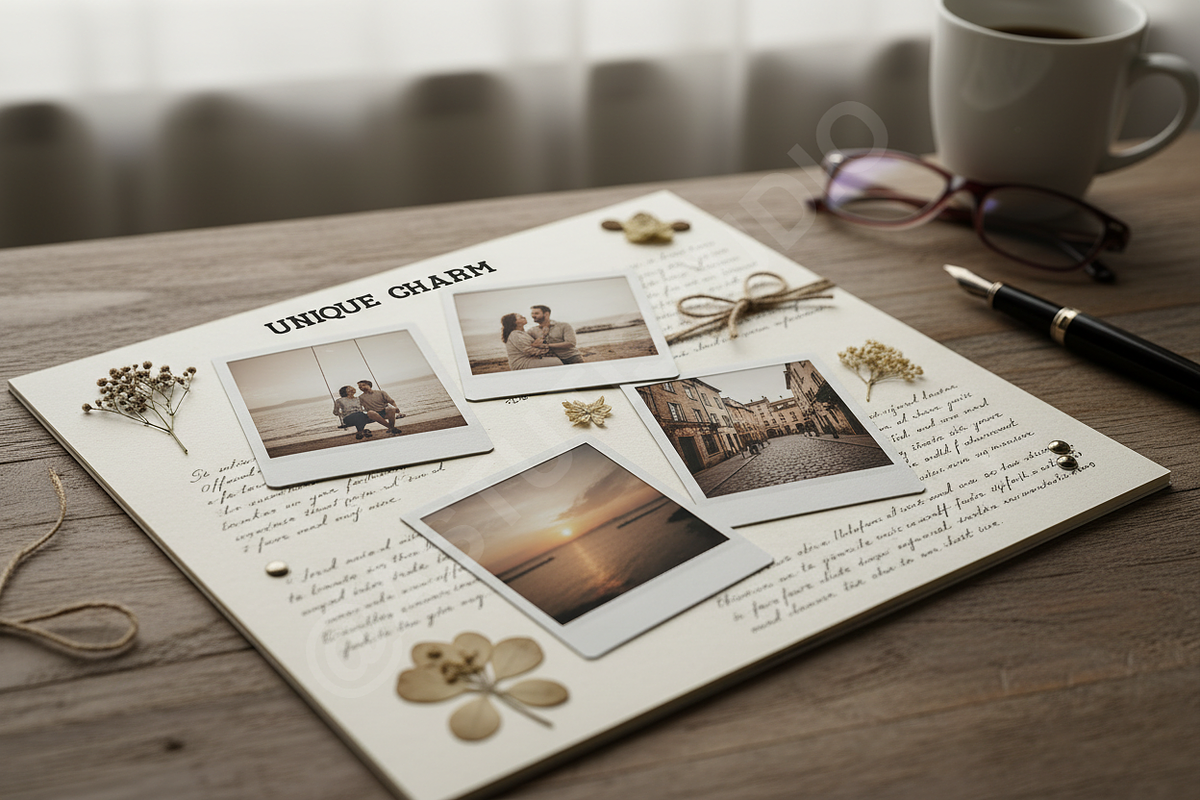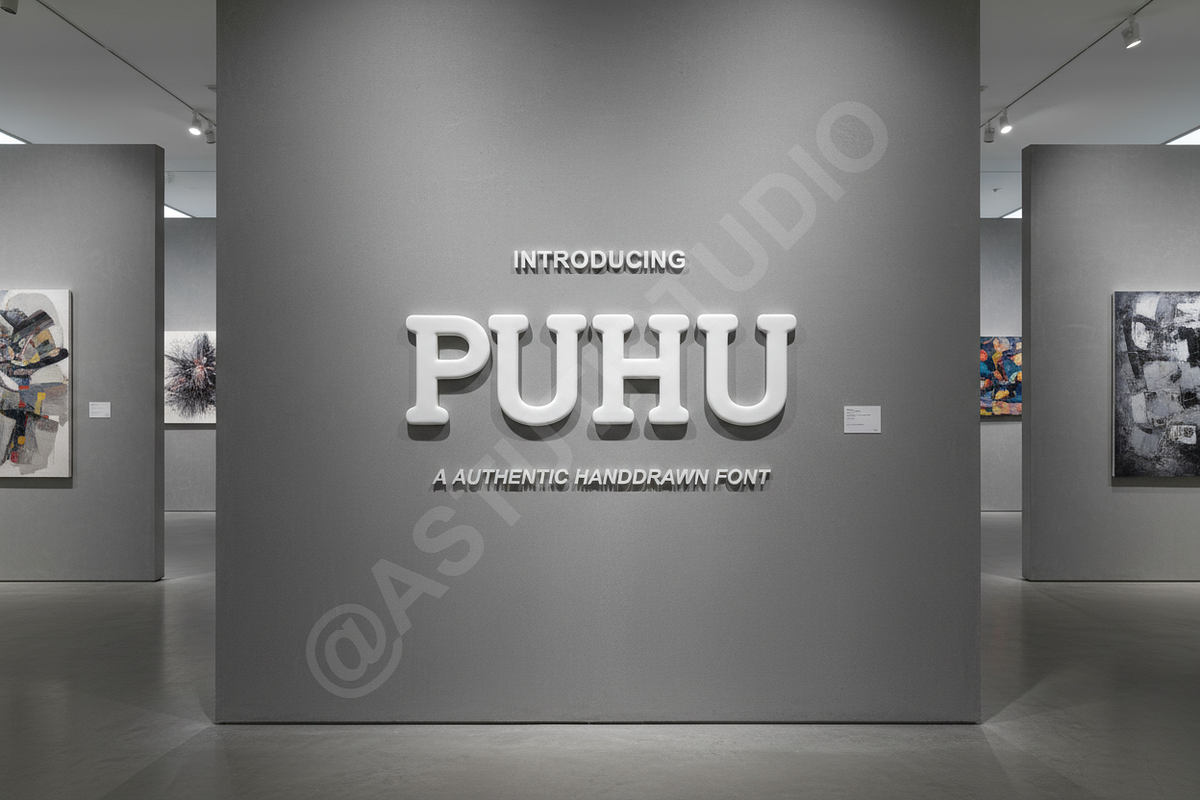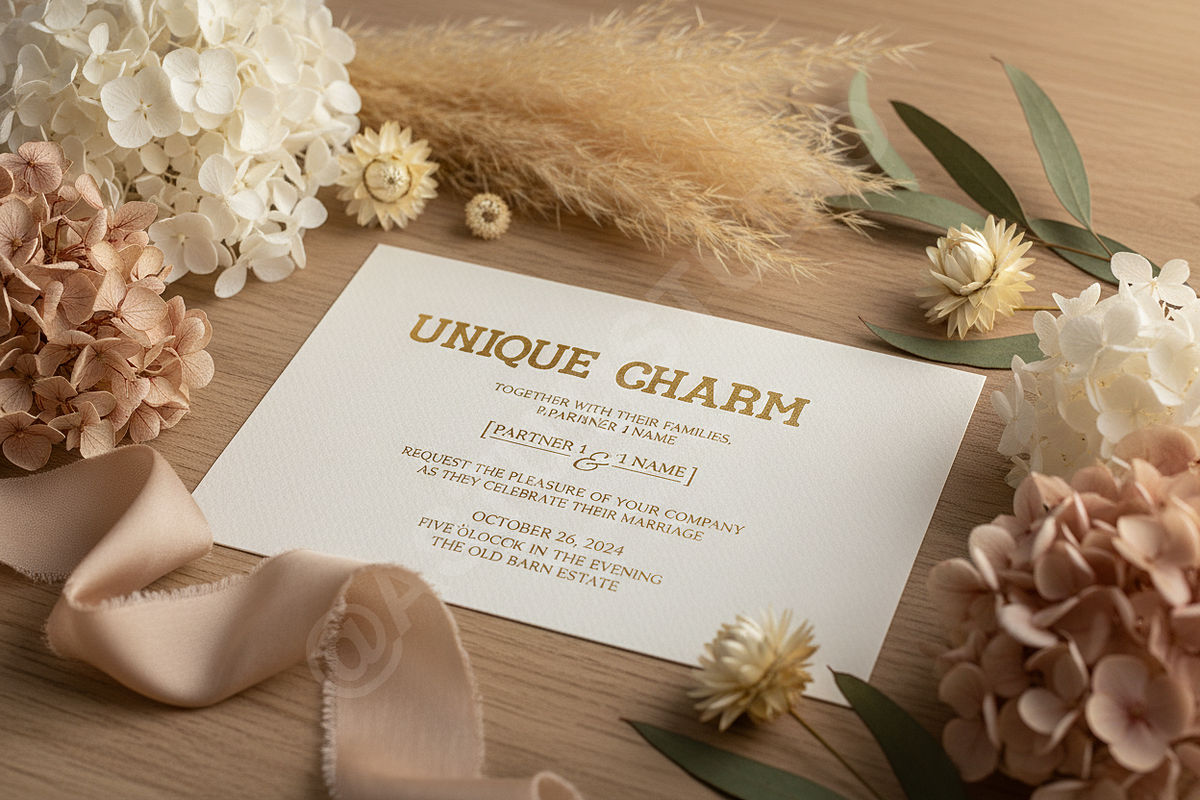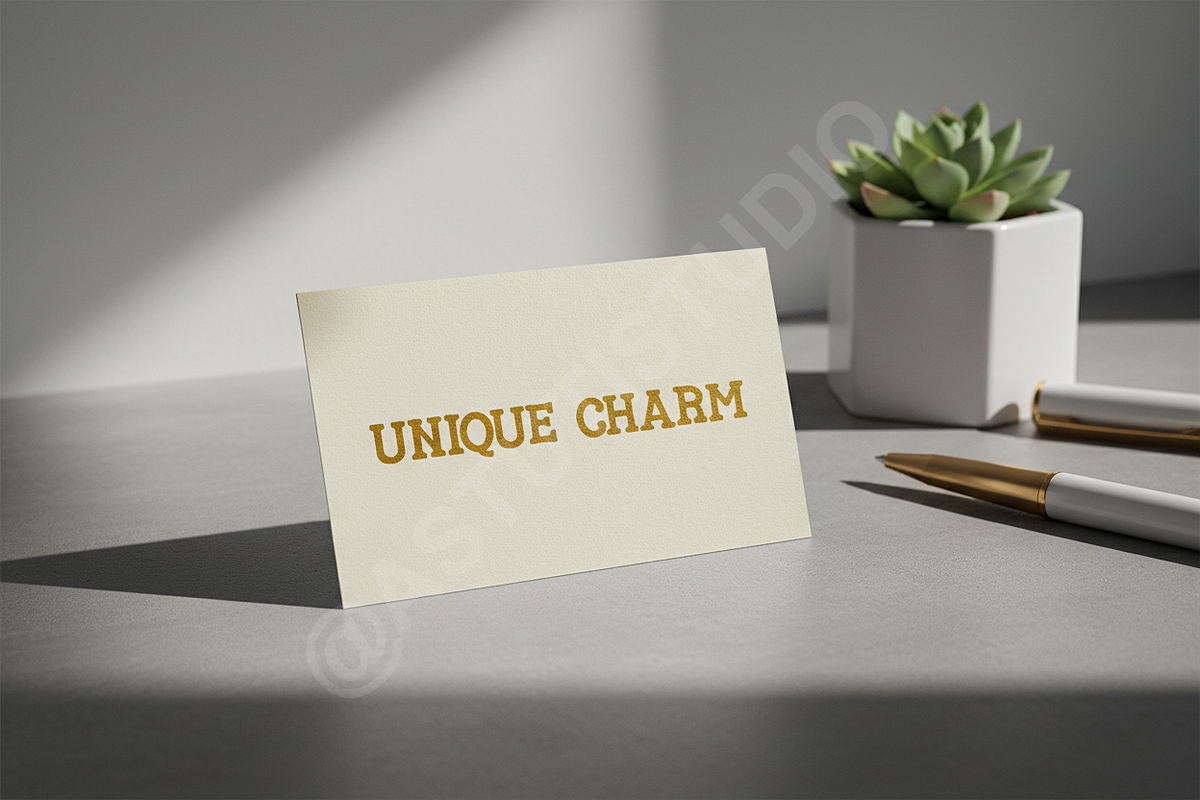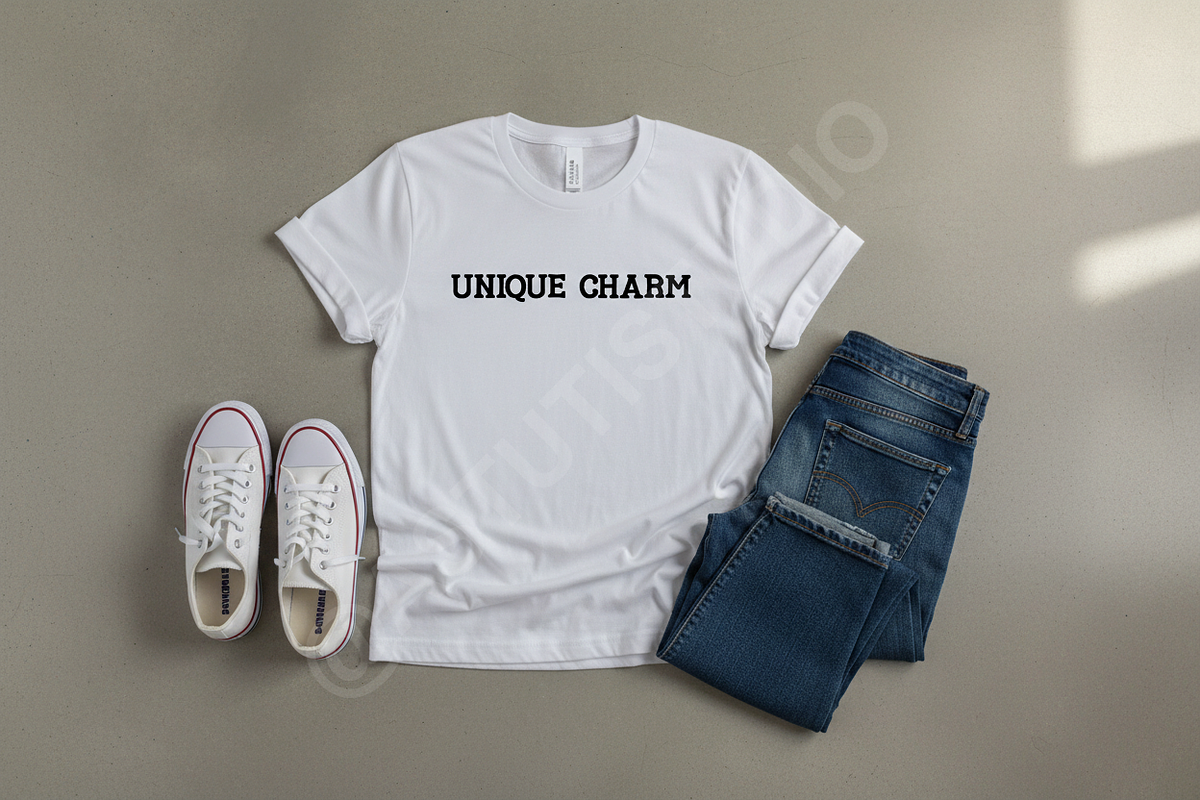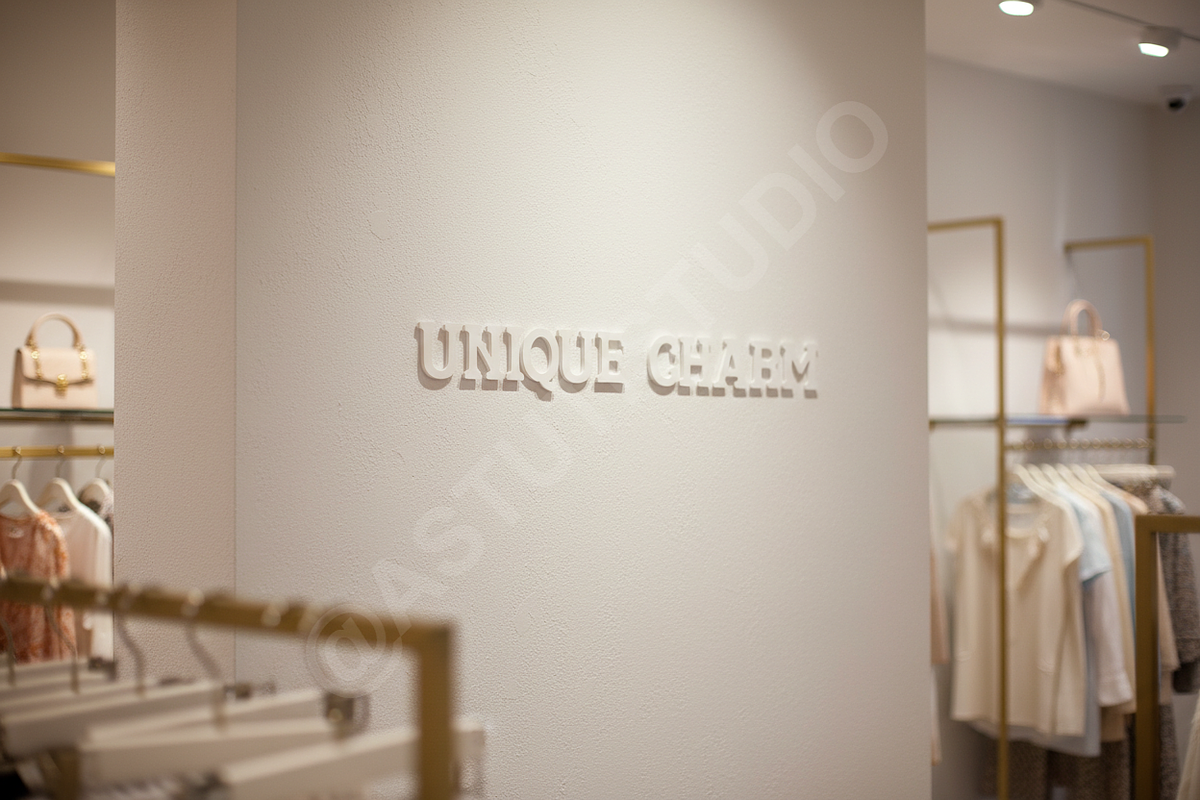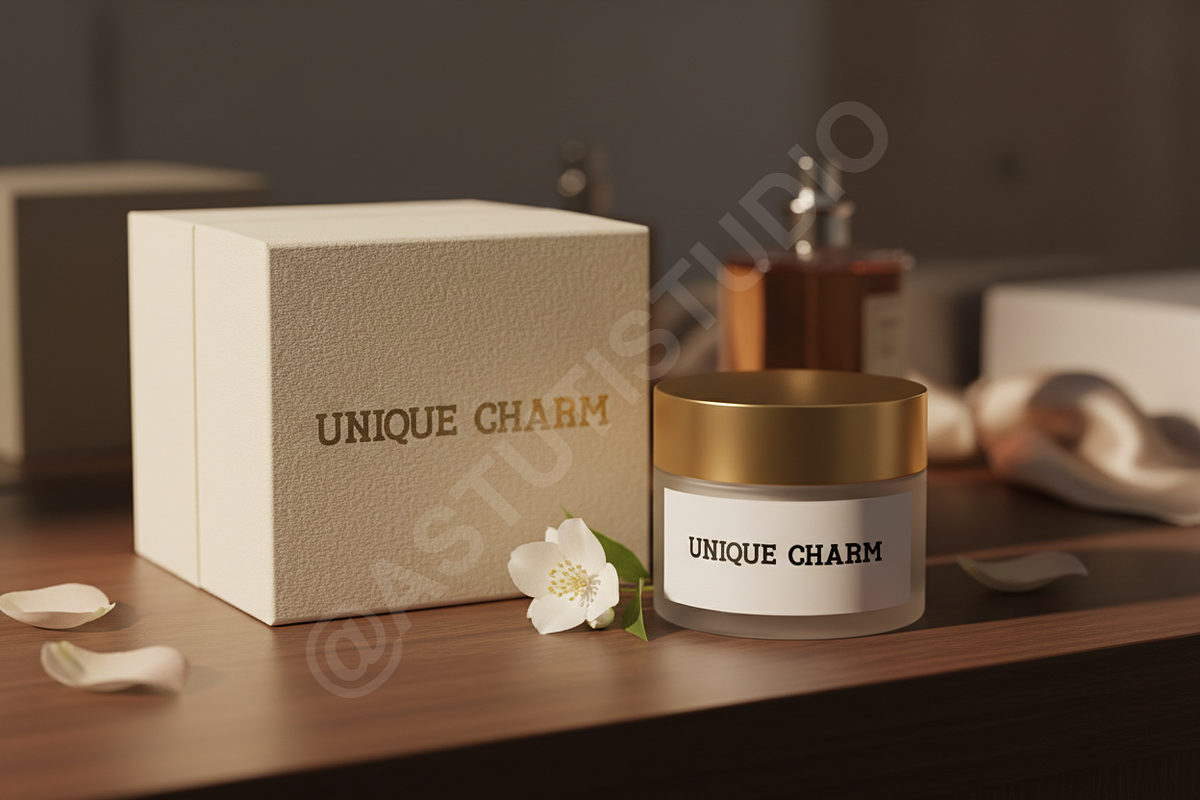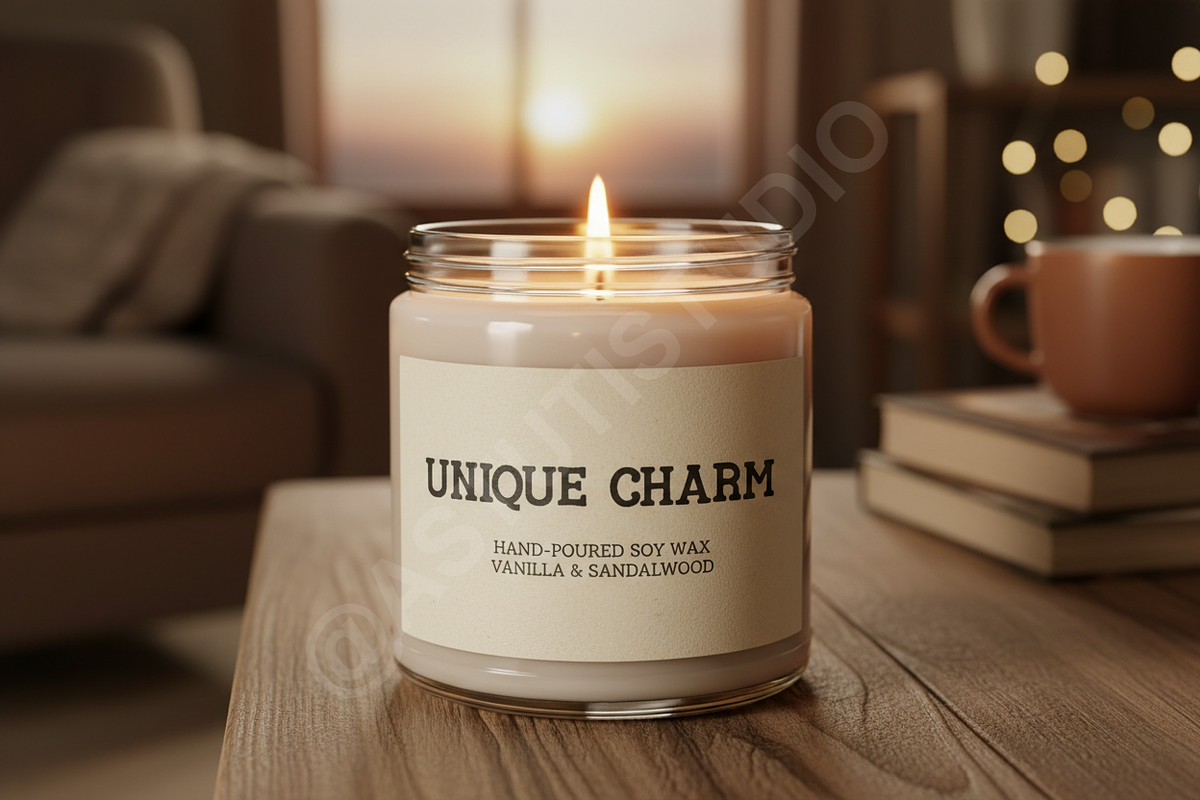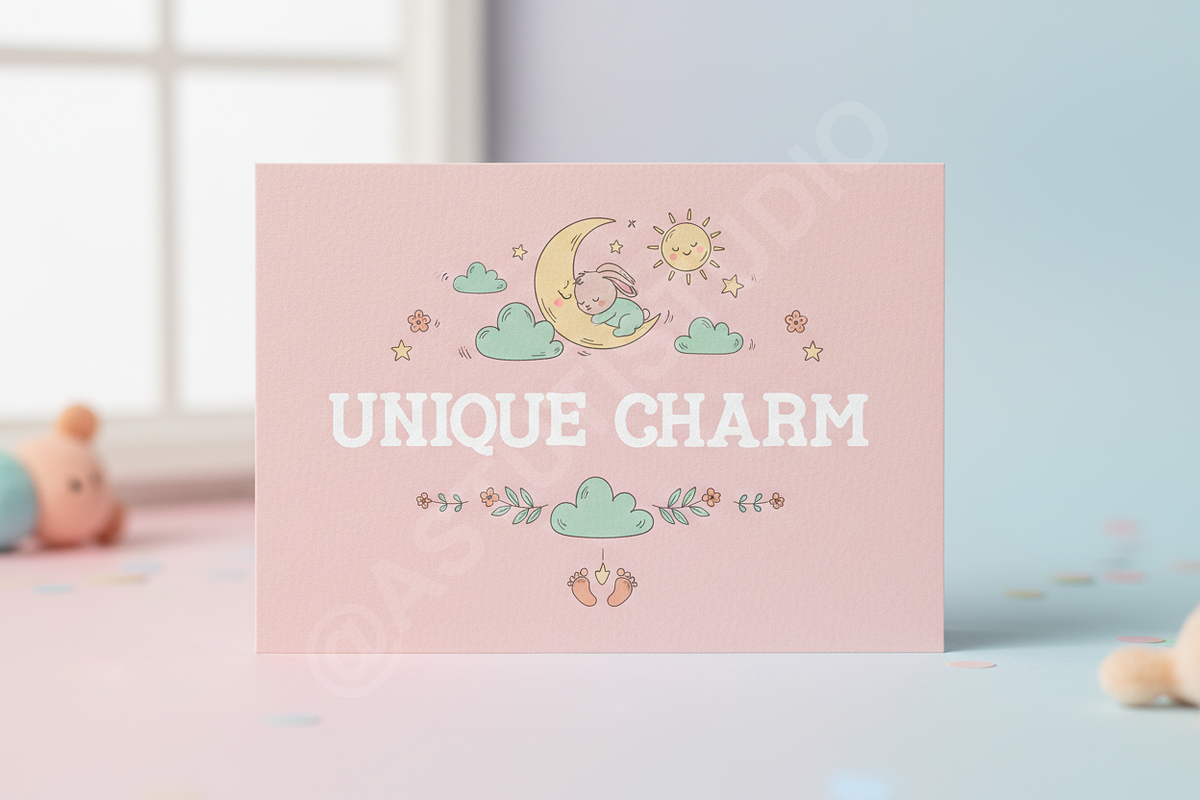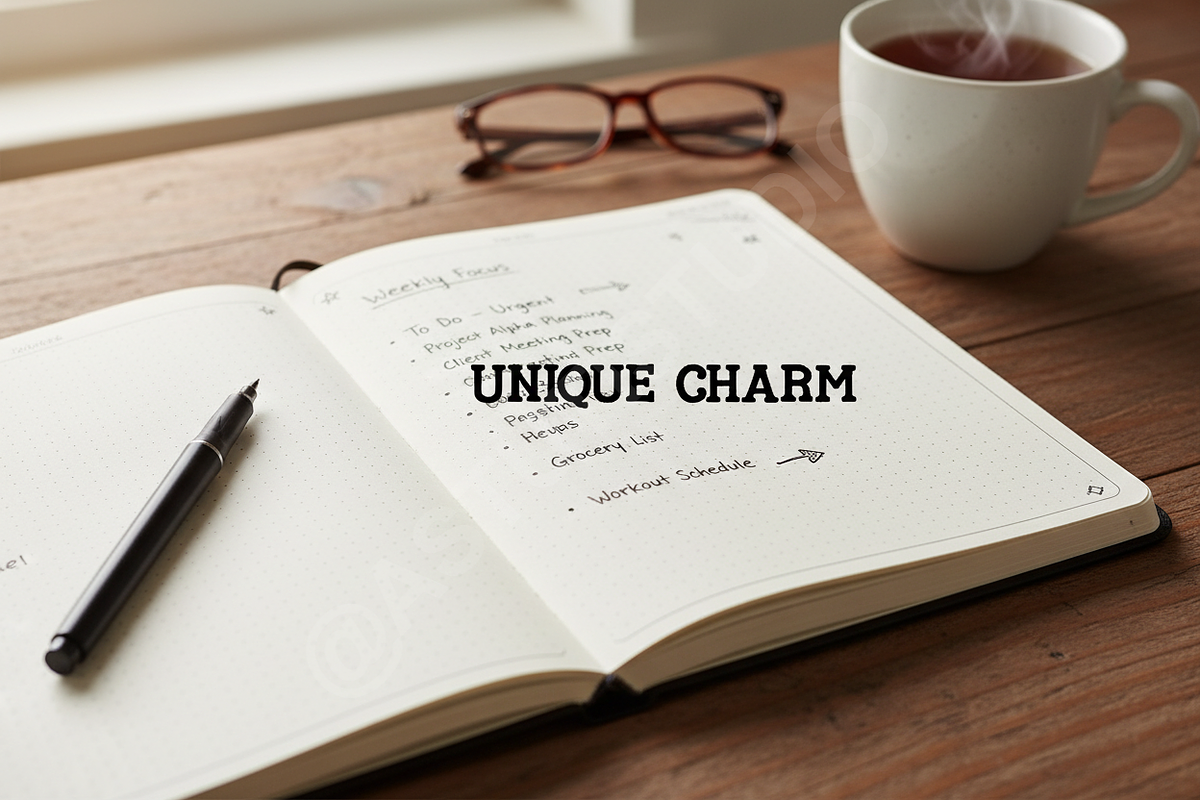
Puhu - Elegant & Sophisticated Seri
INTRODUCTION
Elevate your creative vision with Puhu, a premium serif typeface designed for the modern aesthetic. Puhu combines timeless elegance with a contemporary edge, making it an essential tool for designers who prioritize sophistication and clarity. Whether you are crafting a high-end brand identity or a minimalist editorial layout, Puhu delivers a polished, professional finish.
- High-contrast letterforms for a luxury feel
- Unique, custom-crafted ligatures and alternates
- Full multilingual character support
- Precise kerning for a balanced reading experience
- Optimised for both digital screens and high-quality print
IDEAL FOR
- Luxury branding and visual identity
- Editorial design and magazine spreads
- High-impact social media graphics
- Wedding stationery and invitations
- Website headers and high-fashion advertisements